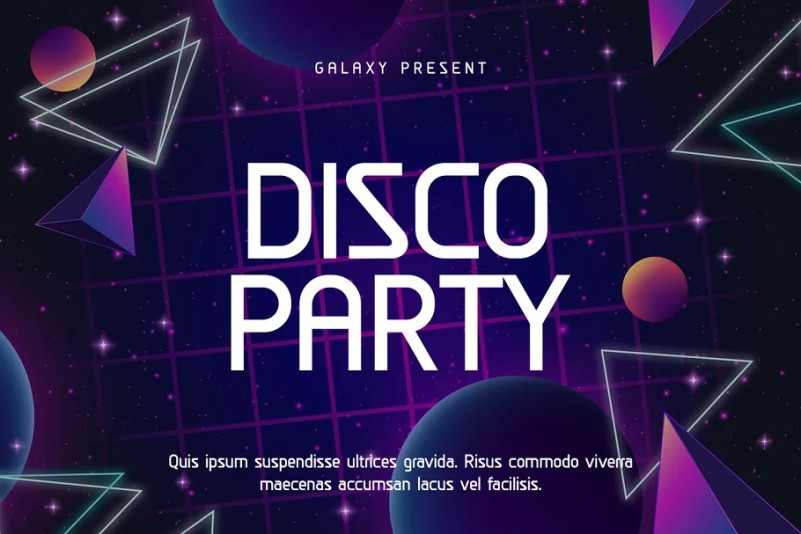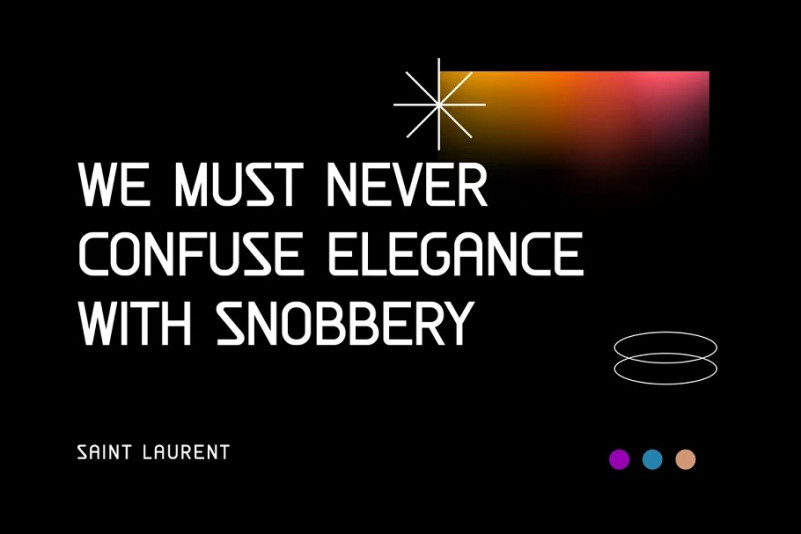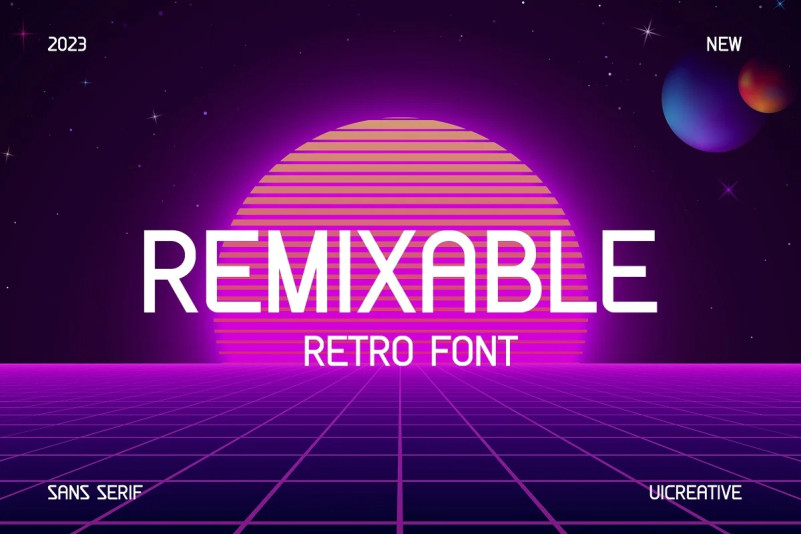
Remixable Font
Remixable Font – Sans Serif Font. Modern Sans Serif font that feels beautiful classy, elegant, and modern. This font is ideally suited for a wide variety of projects, such as signature, stationery, logo, wedding, typography quotes, magazine or book covers, website headers, clothing, branding, packaging design, and more. Also, fashion-related branding or editorial design displays both masculine and feminine qualities.